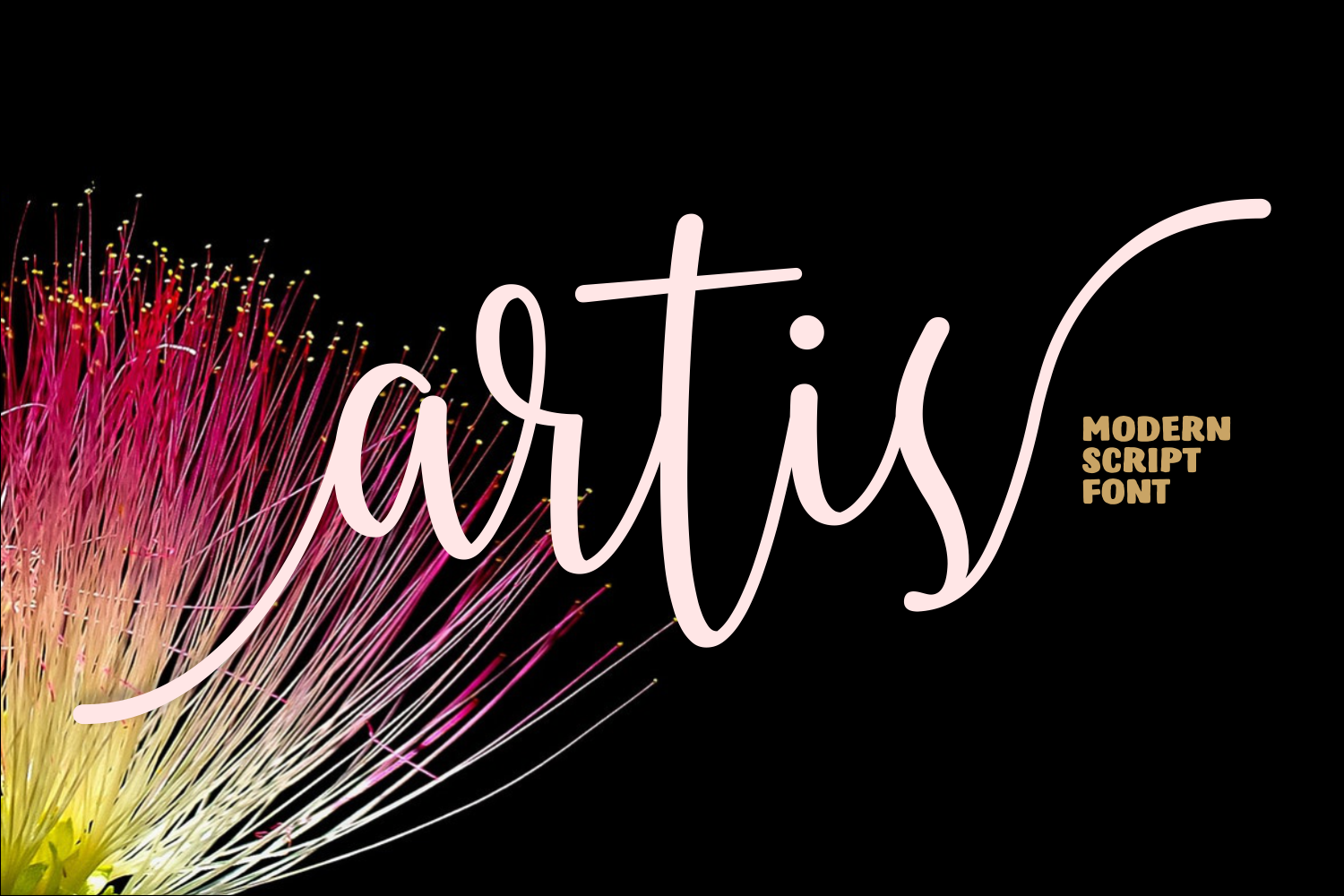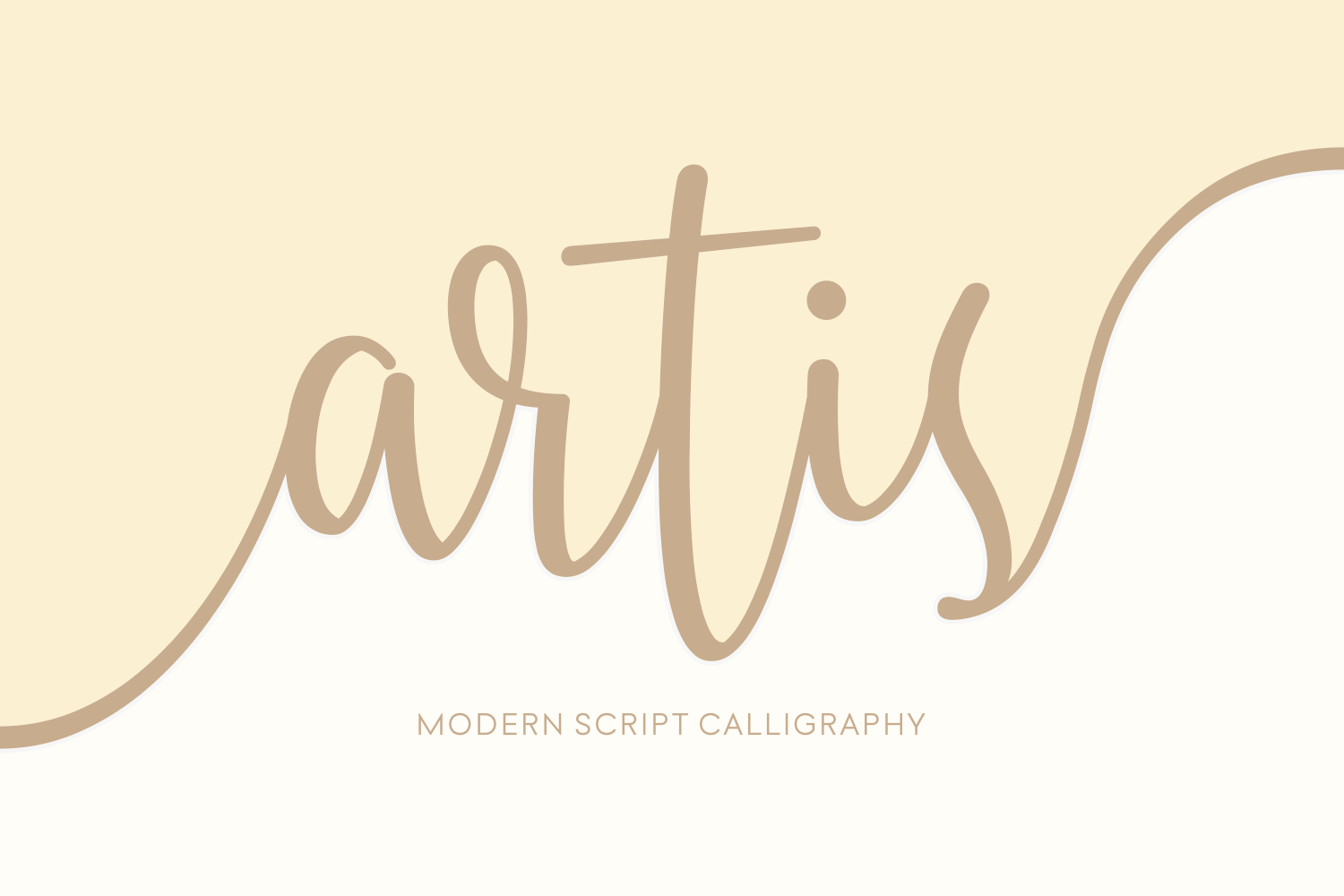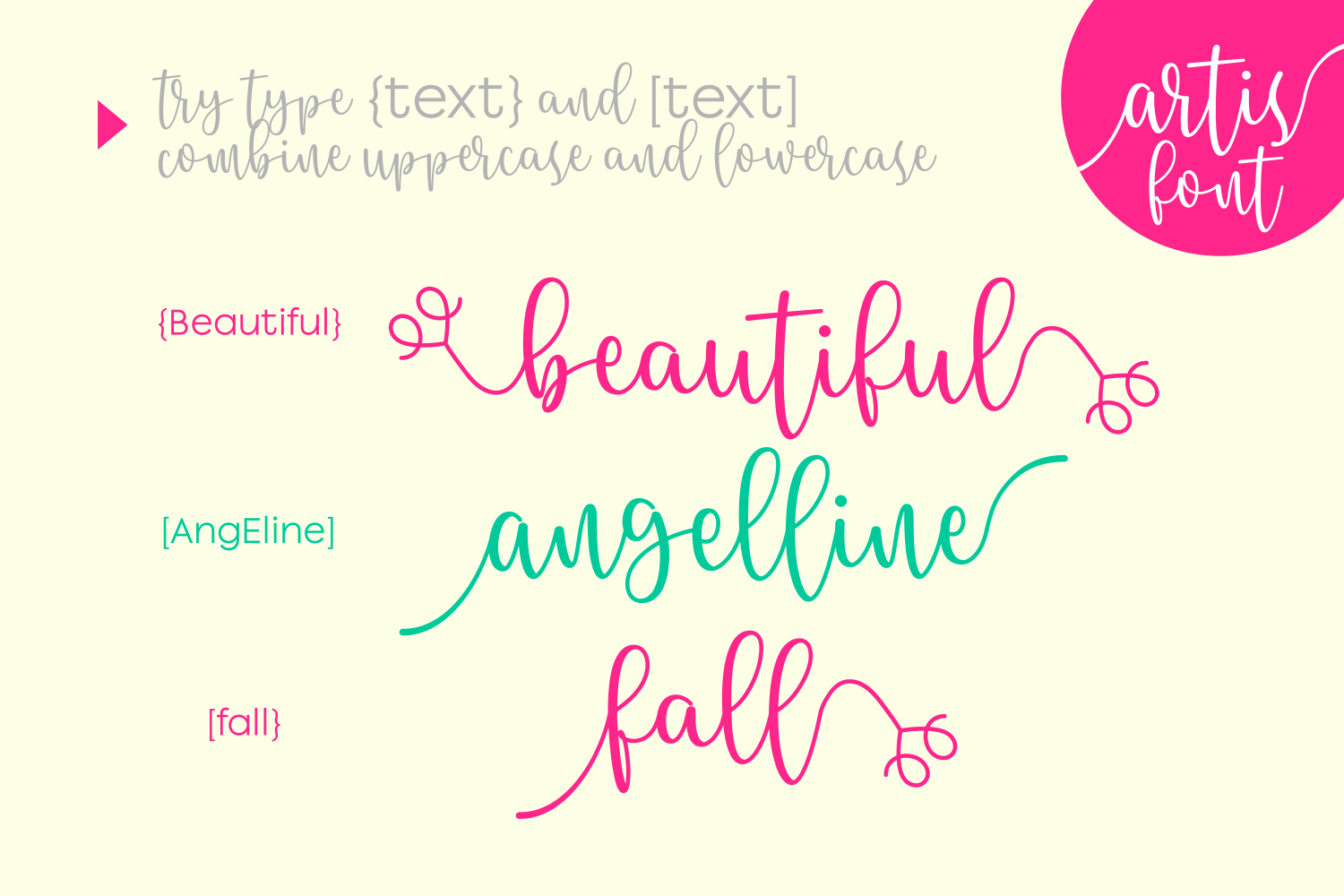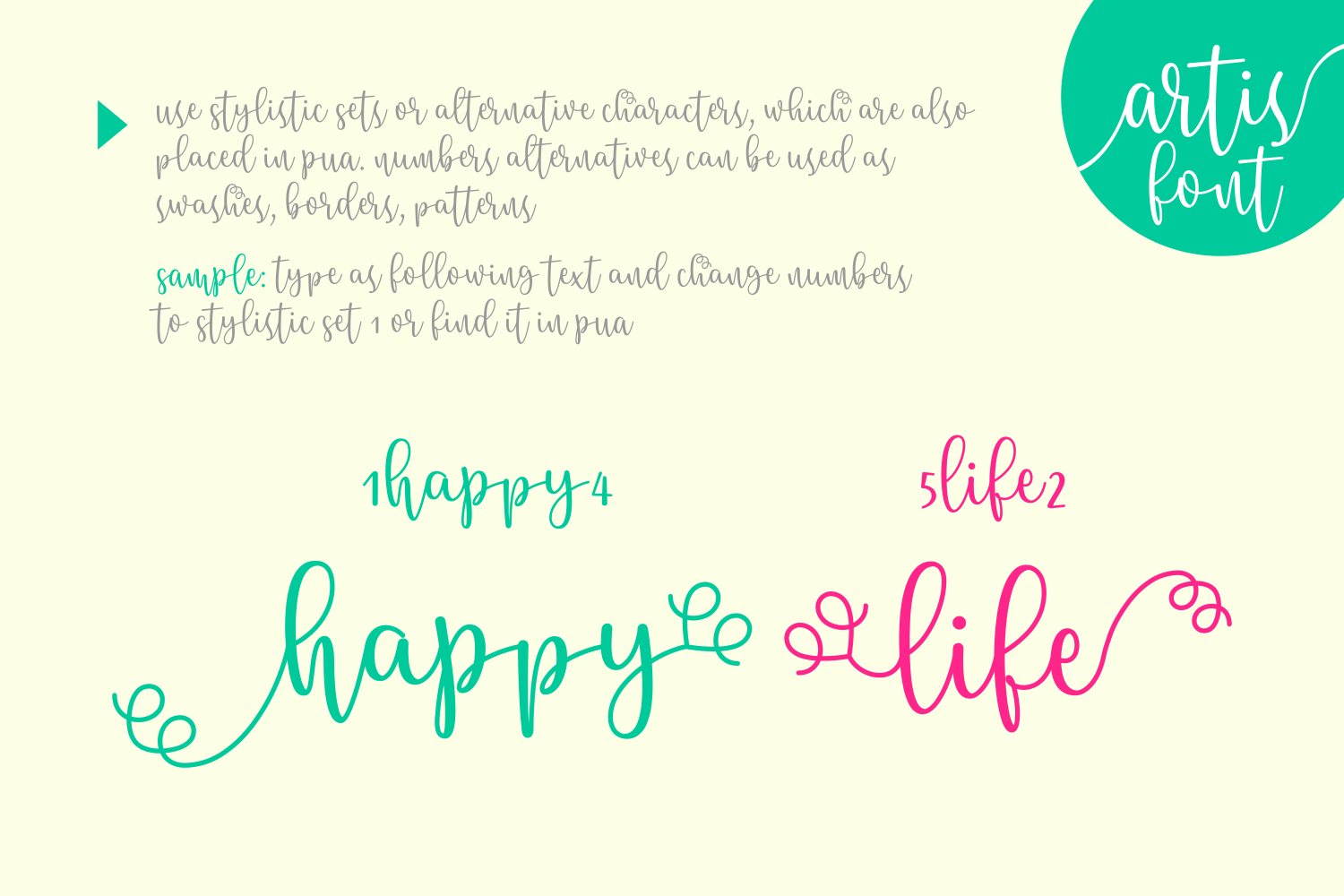
The Artis Font: A Designer’s New Best Friend
I’ll never forget the time I was working on a branding project for a boutique craft shop. My client wanted a font that was soft, elegant, and conveyed a sense of handmade charm. I spent hours scouring the internet for the perfect font, but nothing seemed quite right. That was until I stumbled upon the Artis font. With its free-flowing, hand-drawn aesthetic and easy-to-use swashes, it was love at first sight! 💕
- ✨ Soft and elegant, perfect for branding, packaging, and invitations
- ✅ Easy to use swashes with simple syntax: { } or [ ]
- 🔥 Highly customizable with OpenType features and glyphs
- 💖 Beautifully crafted with a personal, hand-drawn feel
While Artis is an amazing font, there are a few things to keep in mind: 🤔
- ⚠️ Limited character set compared to some other fonts
- ⚠️ May not be suitable for very large or very small text sizes
Artis was created with the intention of capturing the soft, elegant feel of handmade crafts. The designer wanted to create a font that would be perfect for branding, packaging, and invitations – anything that required a touch of personality and whimsy. With its beautiful swashes and easy-to-use syntax, Artis has become a go-to font for designers and crafters alike.
Q: What is the best way to use swashes with Artis?
A: Simply type { } or [ ] around your text to add stunning swashes. You can experiment with different combinations to find the one that works best for your project.
Q: Is Artis suitable for body text?
A: While Artis is beautiful, it’s best suited for display text or headings. For body text, you may want to choose a font with a larger character set and better readability.